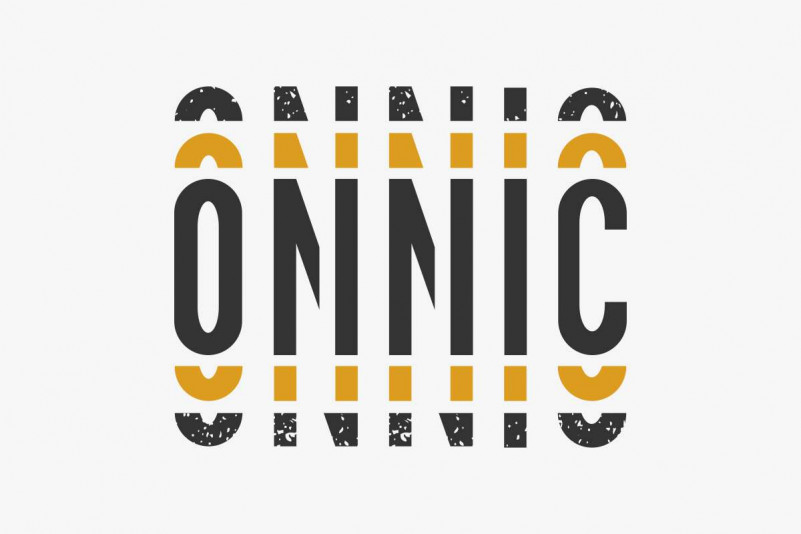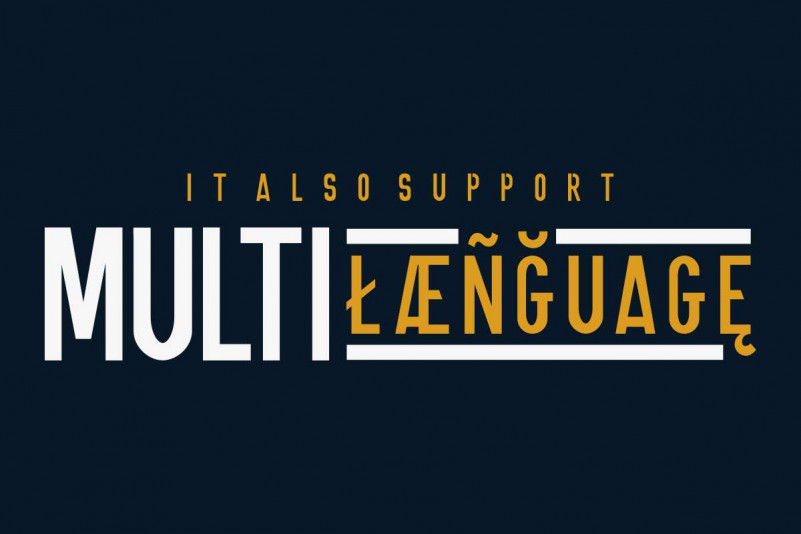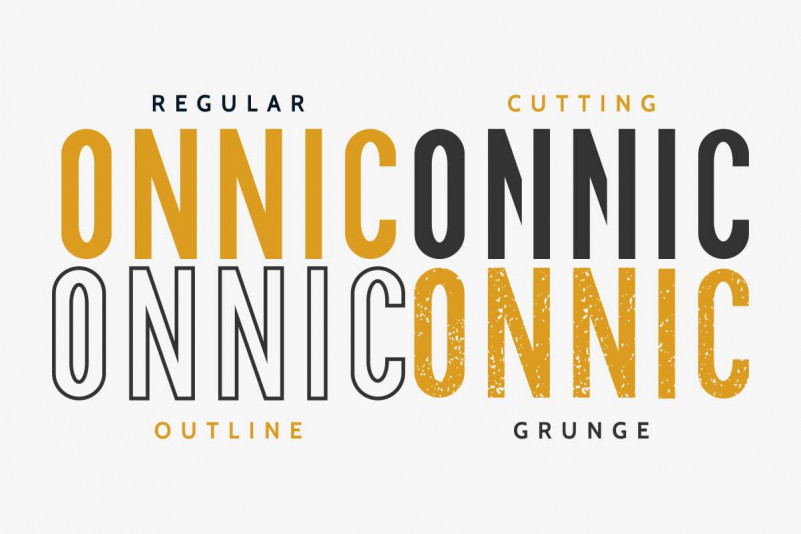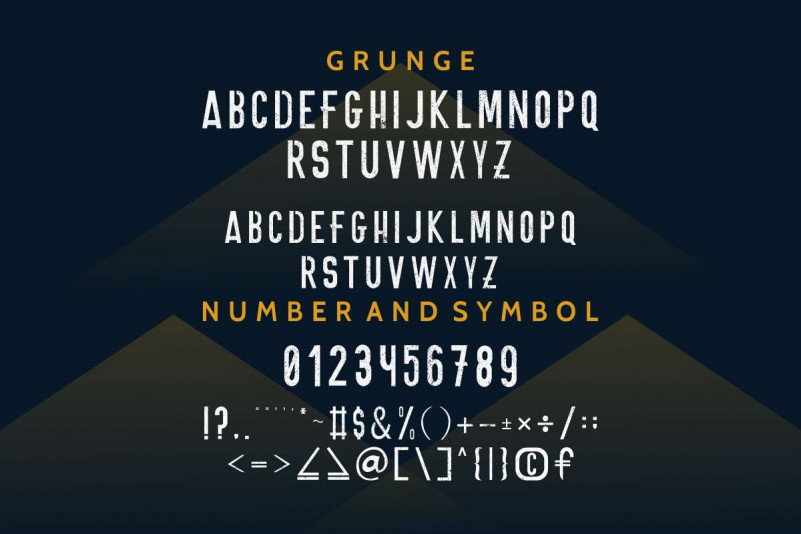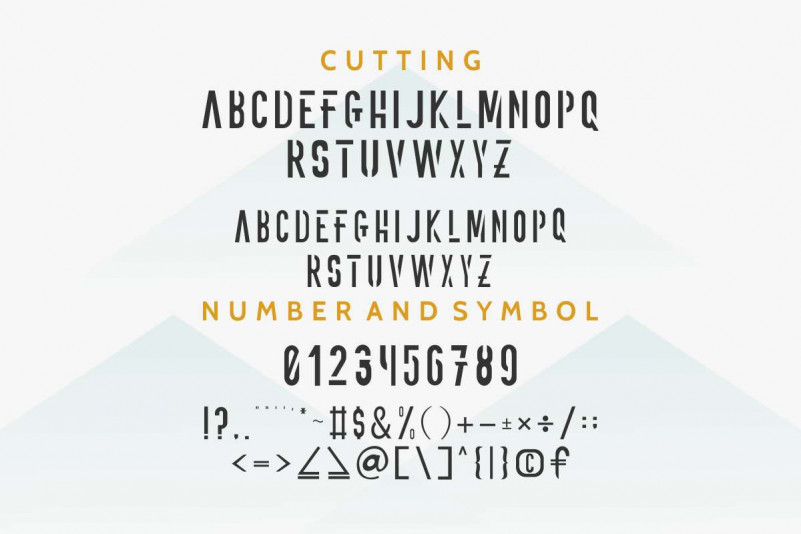
ONNIC Display Font
Hi Everyone! Introducing our newest font : ONNIC Display Font ! This package consist of 4 Styles font : Standar, Cutting (monospaced), grunge and outline This is a new modern display font. It has a fresh, elegant, unique and stylish glyph . Will be Great for branding, logo type, stationery, business card, signage, flyer, brochure etc. There are many industries that is suitable for this font : startup, technology, agency, marketing, game, studio or any hip modern companies